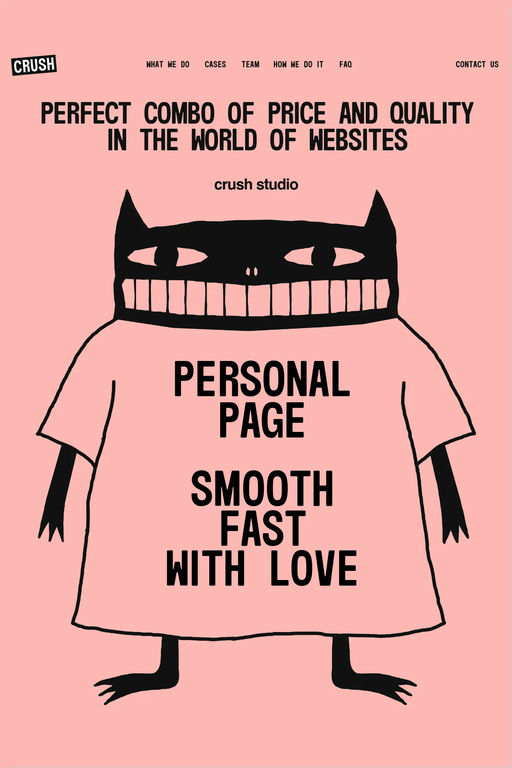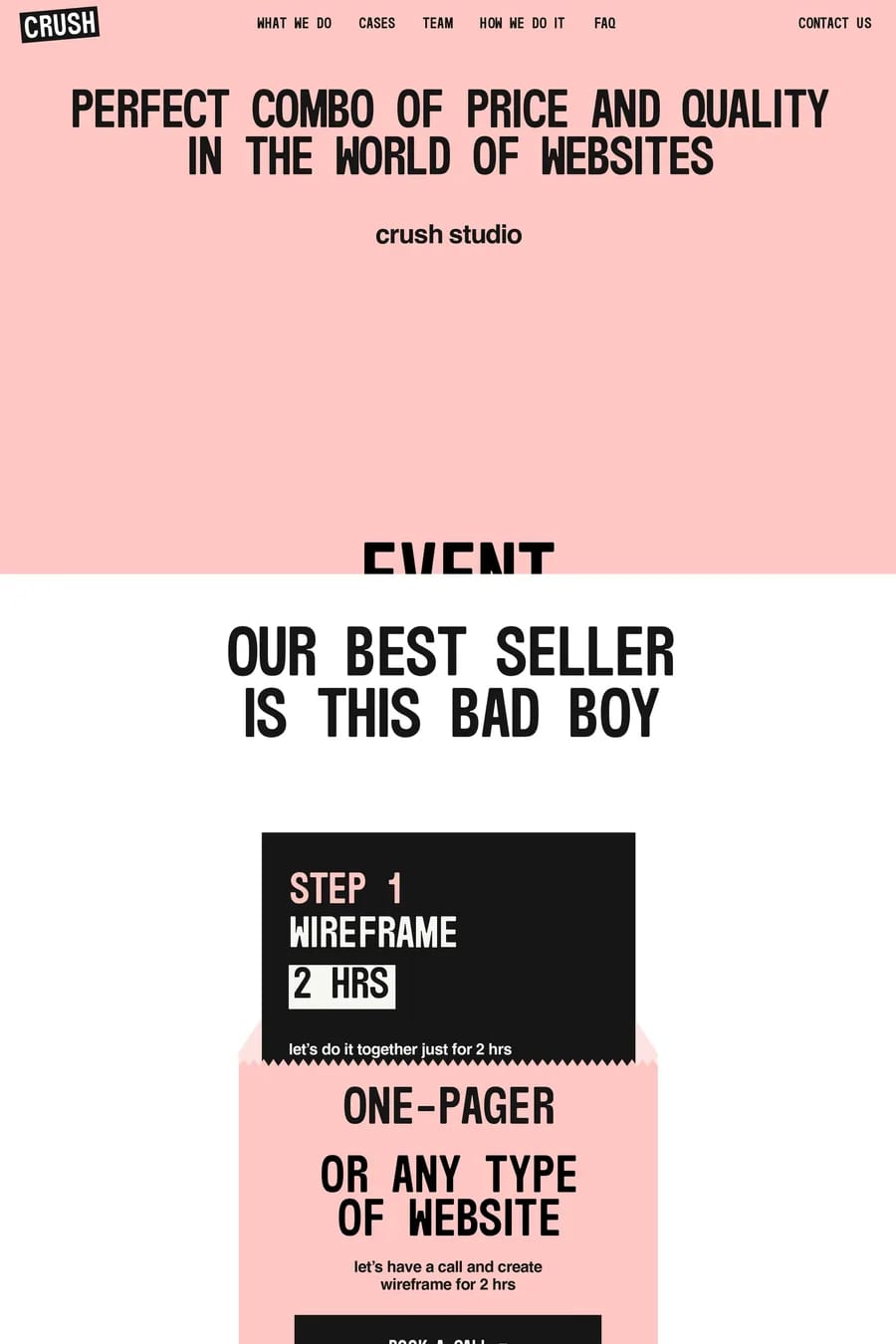
Alfredino Semimono is a typography project that embodies a dynamic, slightly vintage aesthetic while maintaining a clean, contemporary look and is equipped with three distinct styles. The "Semimono" style is characterised by essential cleanliness and strong visual impact.